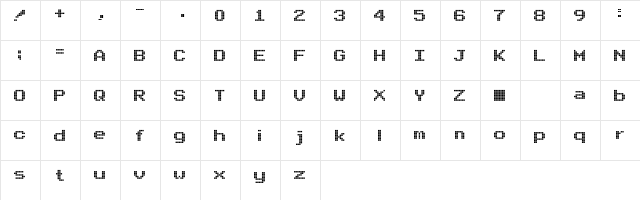
Arcade Regular
Design Context for Arcade Typeface
Arcade is a composed and adaptable typeface that performs quietly and consistently across a wide range of design contexts.
Pro Tip: Pair Arcade with a font of contrasting weight or personality to build a more expressive typographic hierarchy.